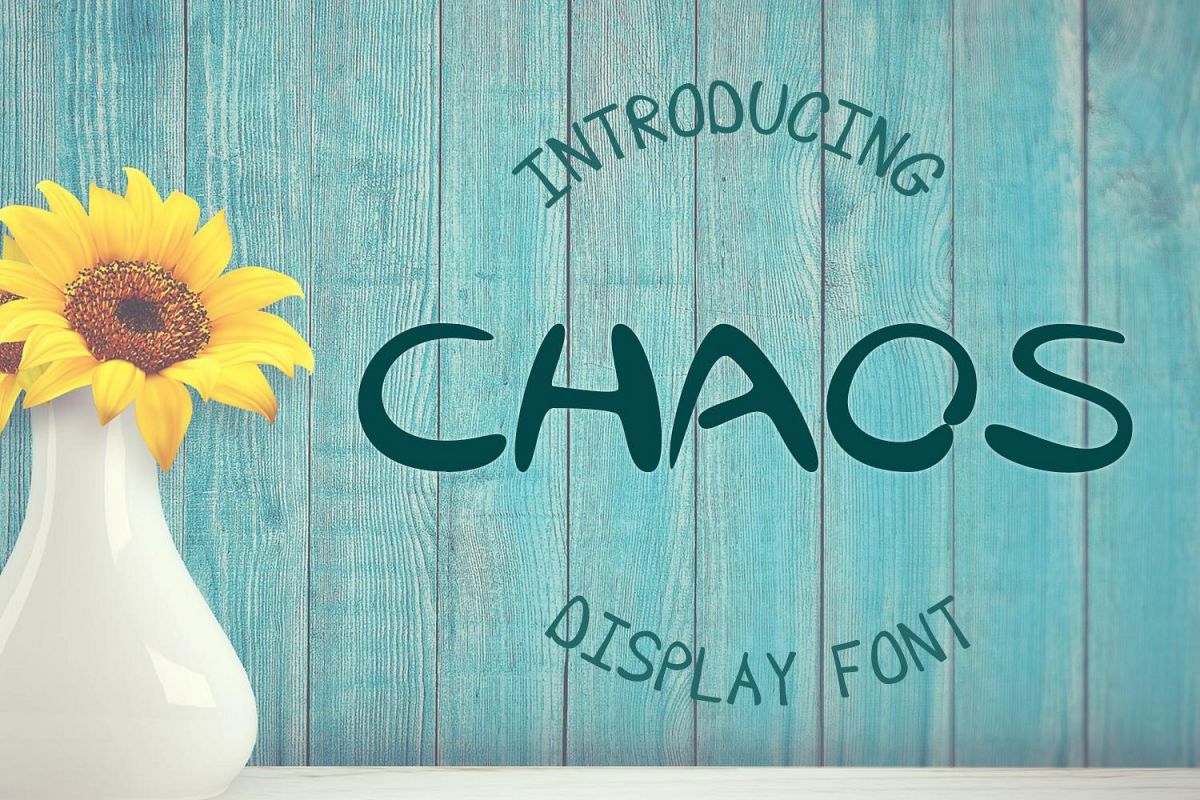
EP Chaos
EP Chaos - Display Font
The font is best for branding and decorative projects, perfect to invitations. You can even create a custom logo using the font, book cover, busienss cards, stationary, marketing material.